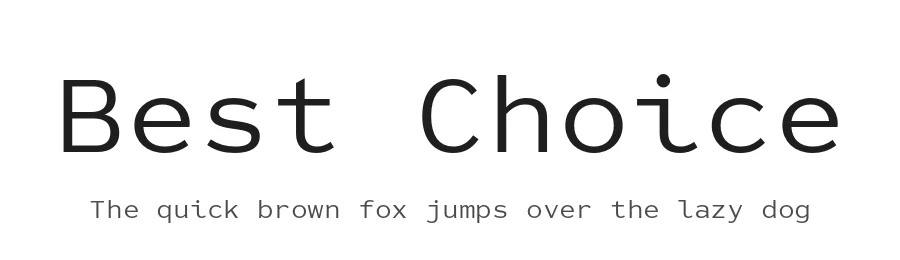
About Karmilla Font
Karmilla is a sans-serif font designed by Jonathan Pinhorn. It includes 392 glyphs, a regular weight, TTF (TrueType) format, and 275 languages. Karmilla is free to download; check the license details on this page before commercial use. Sans-serif fonts like Karmilla work best for clean body text, user interfaces, branding, and modern layouts.
- Clean, Modern, Sans Serif
Karmilla Font is a versatile sans-serif font that works for both headings and body text. Pair it with a contrasting serif or slab serif font to add visual interest and a clear distinction between titles and body copy.
Karmilla Font is a sans serif typeface by Jonathan Pinhorn, ideal for logos, invitations, branding, and creative projects.